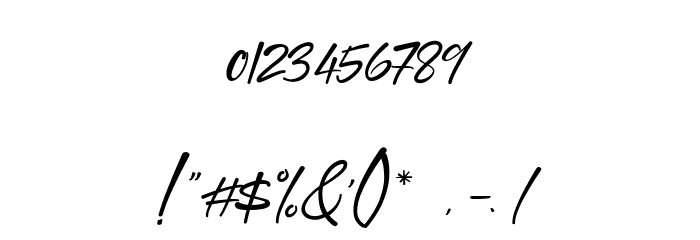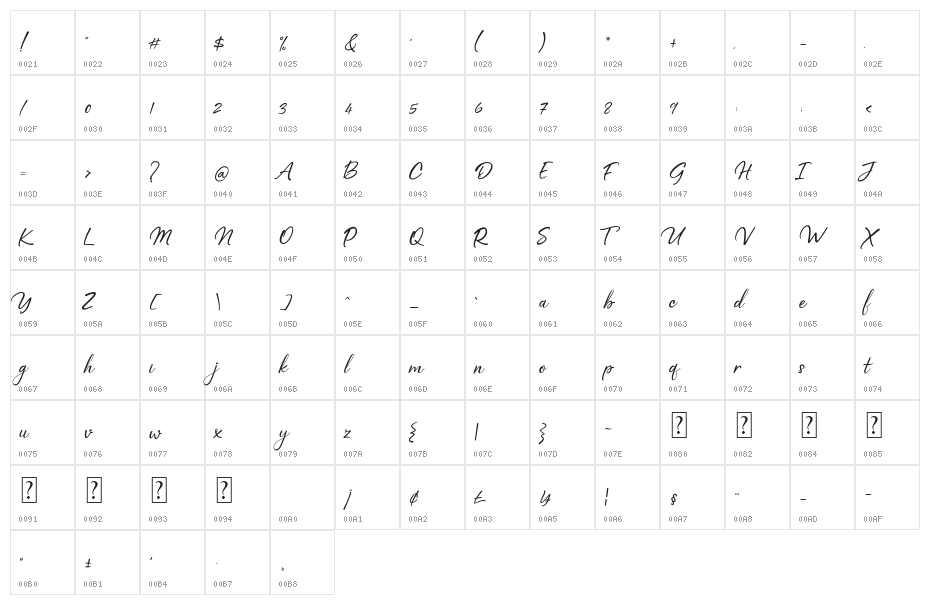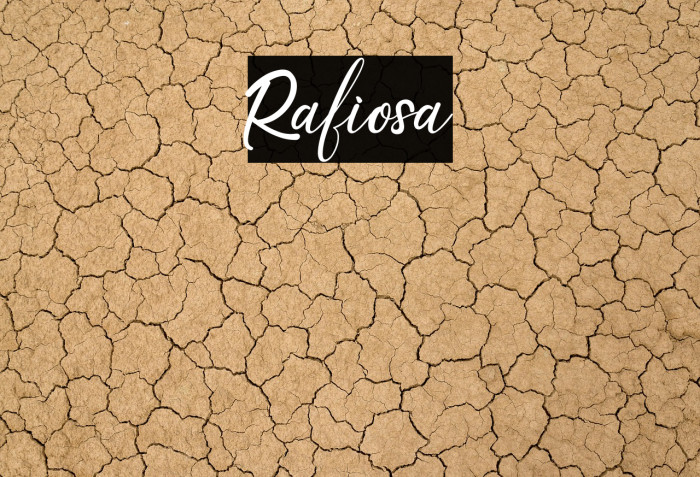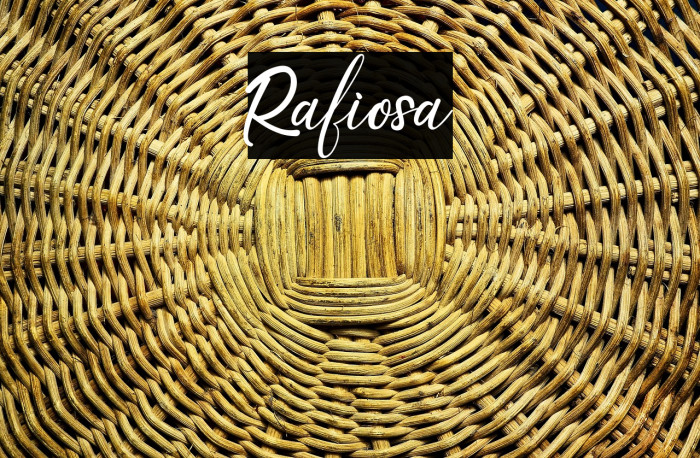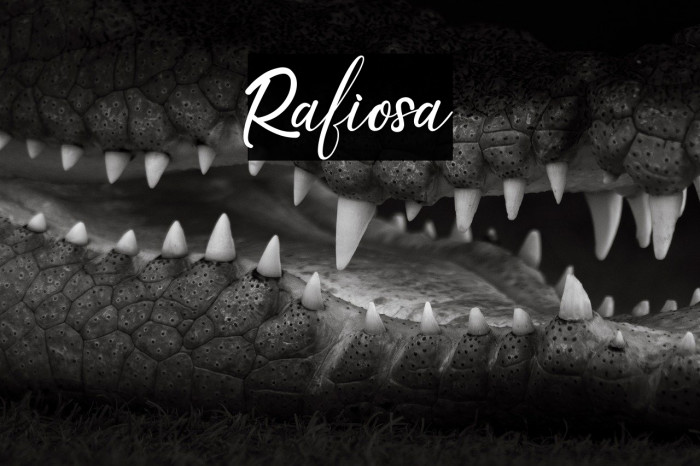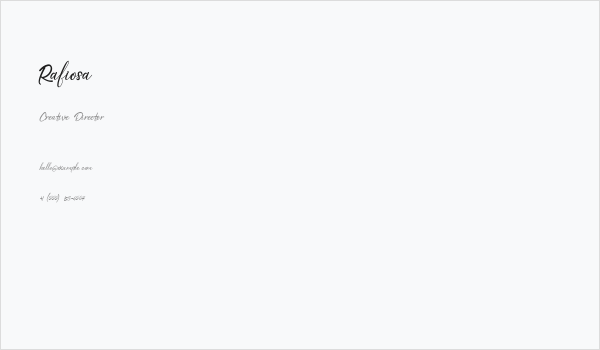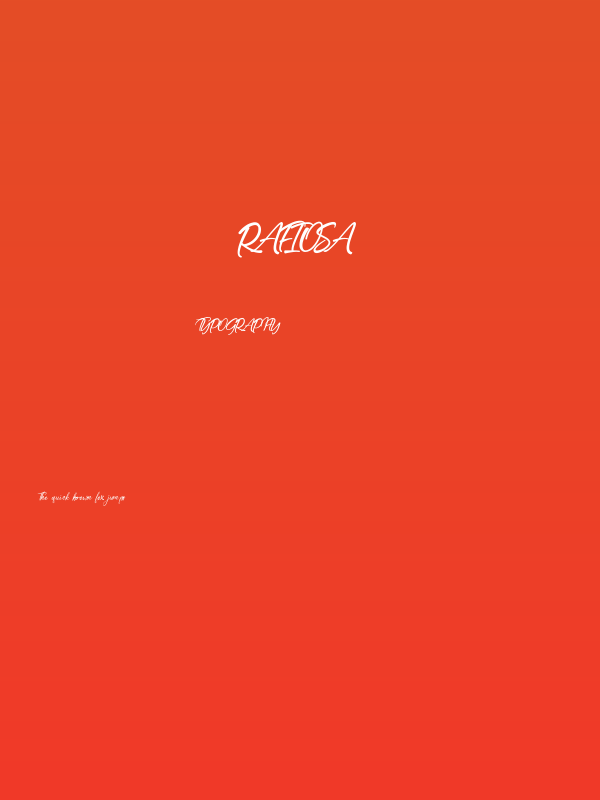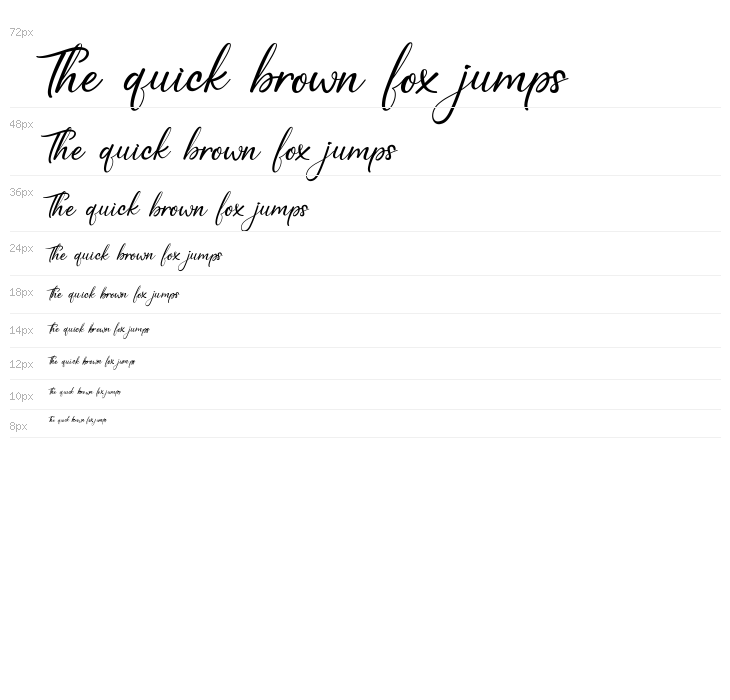
Rafiosa Font
Rafiosa Description
This font exudes elegance and sophistication with its fluid, cursive style. The characters are gracefully connected, creating a seamless flow that mimics natural handwriting. The uppercase letters are bold and prominent, while the lowercase letters maintain a delicate balance, offering a refined contrast. The numbers and special characters are crafted with the same attention to detail, ensuring consistency throughout. The overall design is both artistic and legible, making it suitable for a variety of creative applications. Its unique charm and stylish flair make it a standout choice for projects that require a touch of elegance.